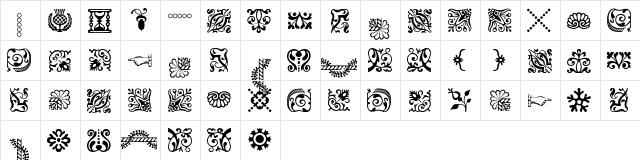
Adobe Caslon Ornaments Regular
Design Context for Adobe Caslon Ornaments Typeface
Adobe Caslon Ornaments is built around its visual character rather than neutral utility — its distinctive forms are designed to make an impression at display sizes.
Font Pairing: Pair with a clean neutral sans-serif for body copy to let Adobe Caslon Ornaments's character lead without overwhelming the composition.
Pro Tip: Treat Adobe Caslon Ornaments as the centrepiece of your typographic hierarchy. One strong heading set in a decorative face can carry an entire layout.